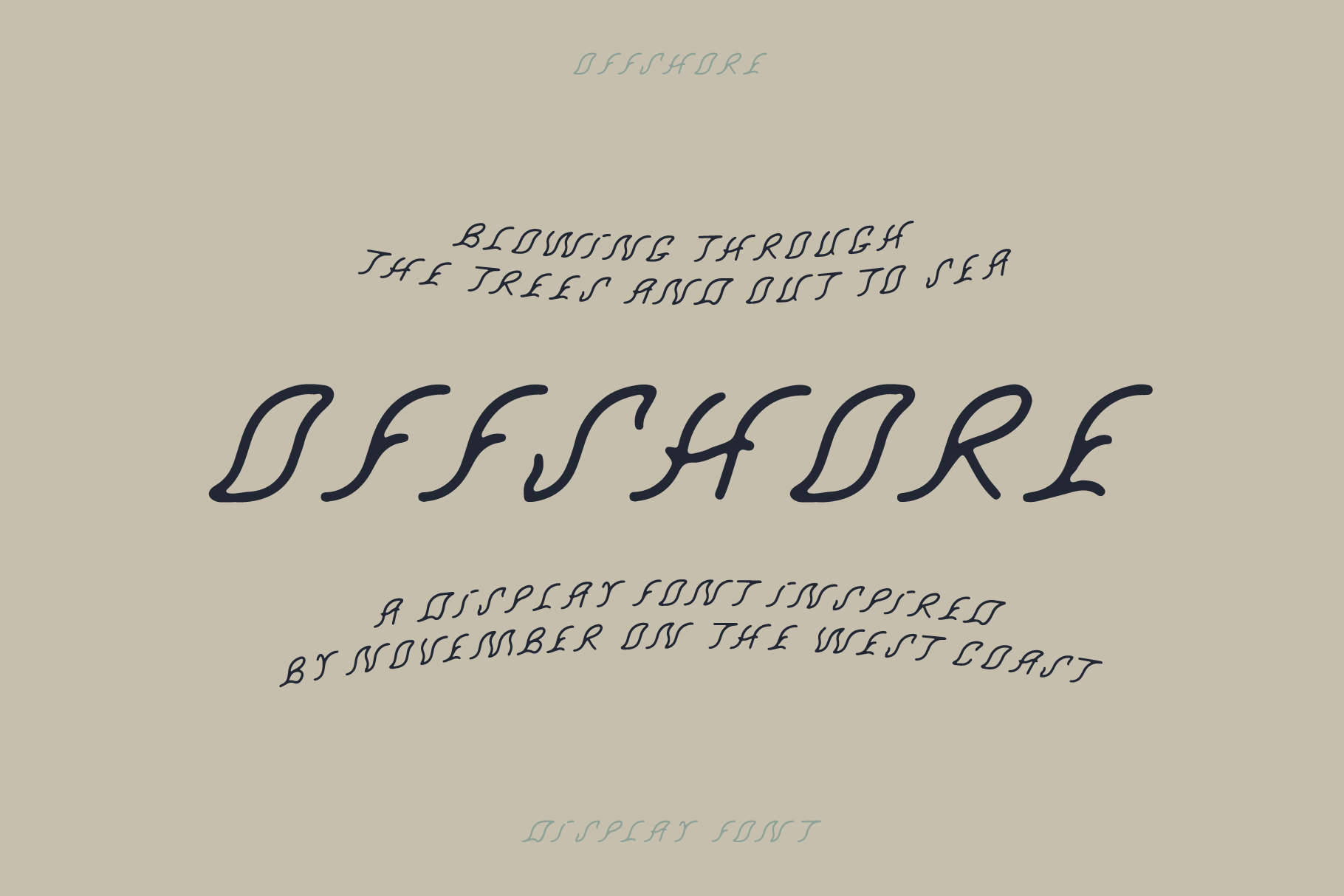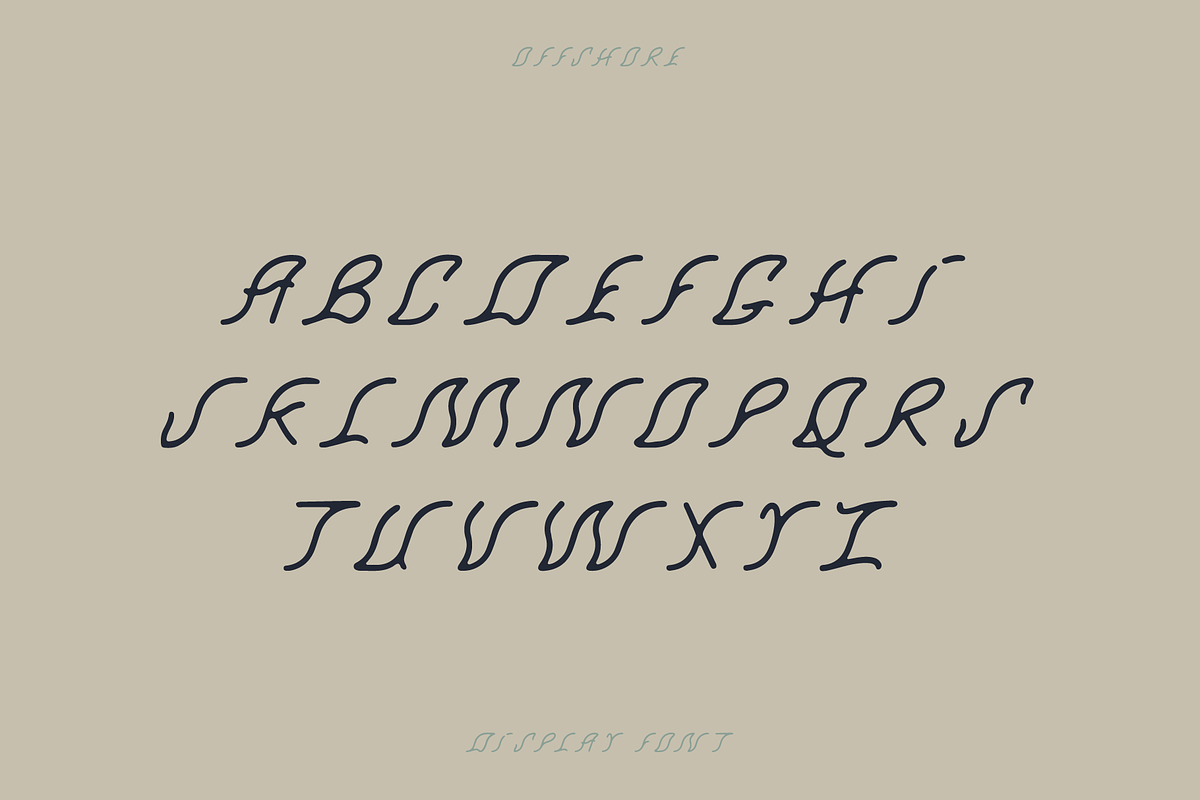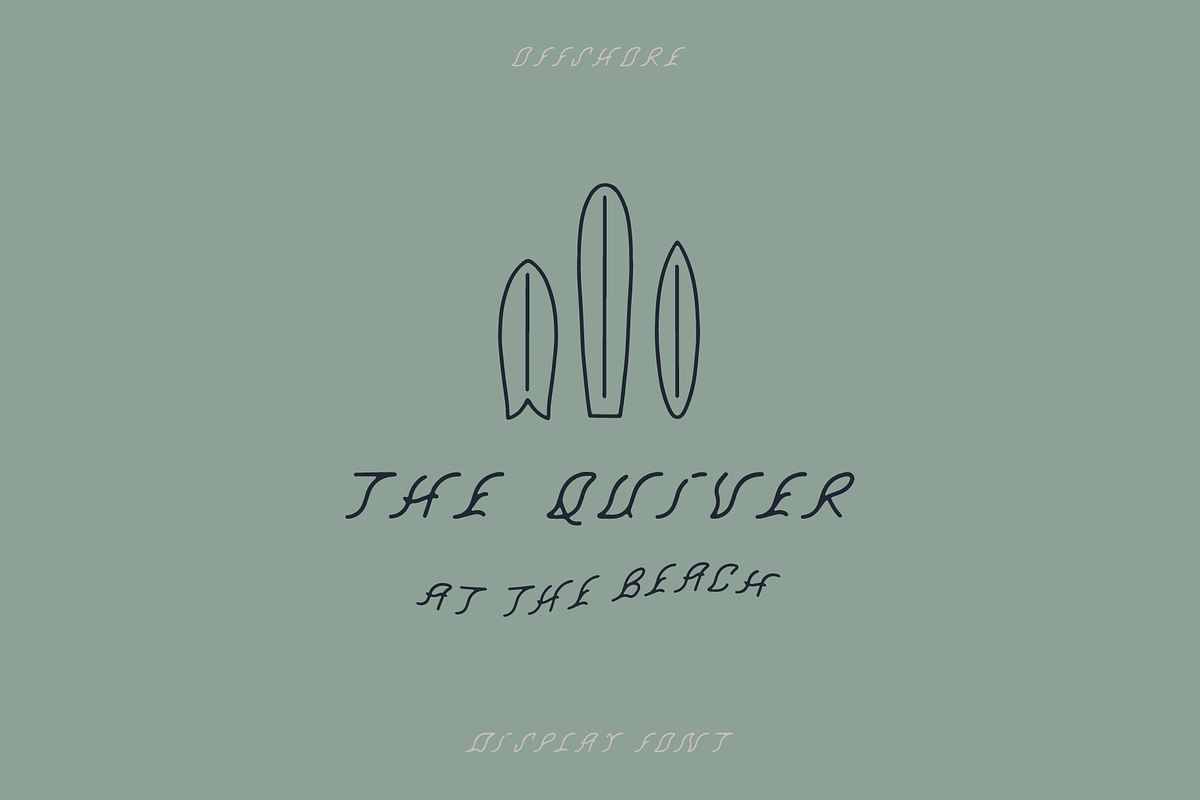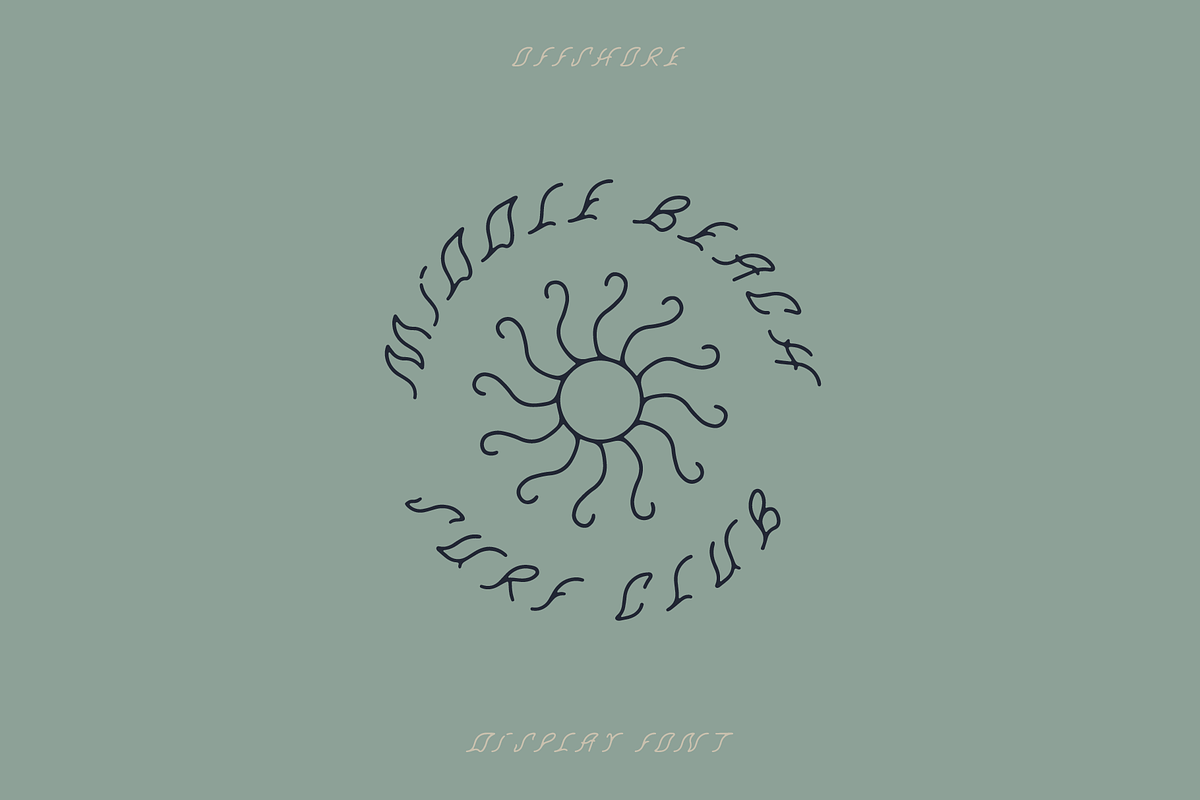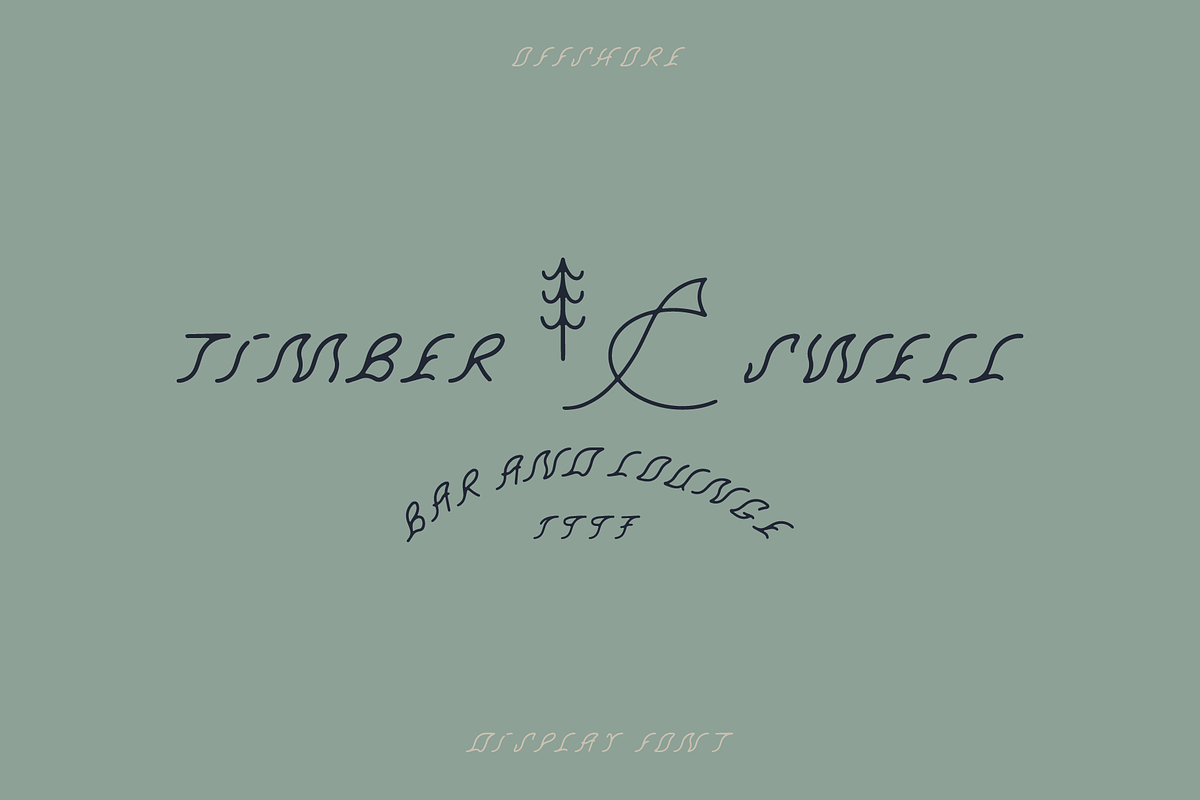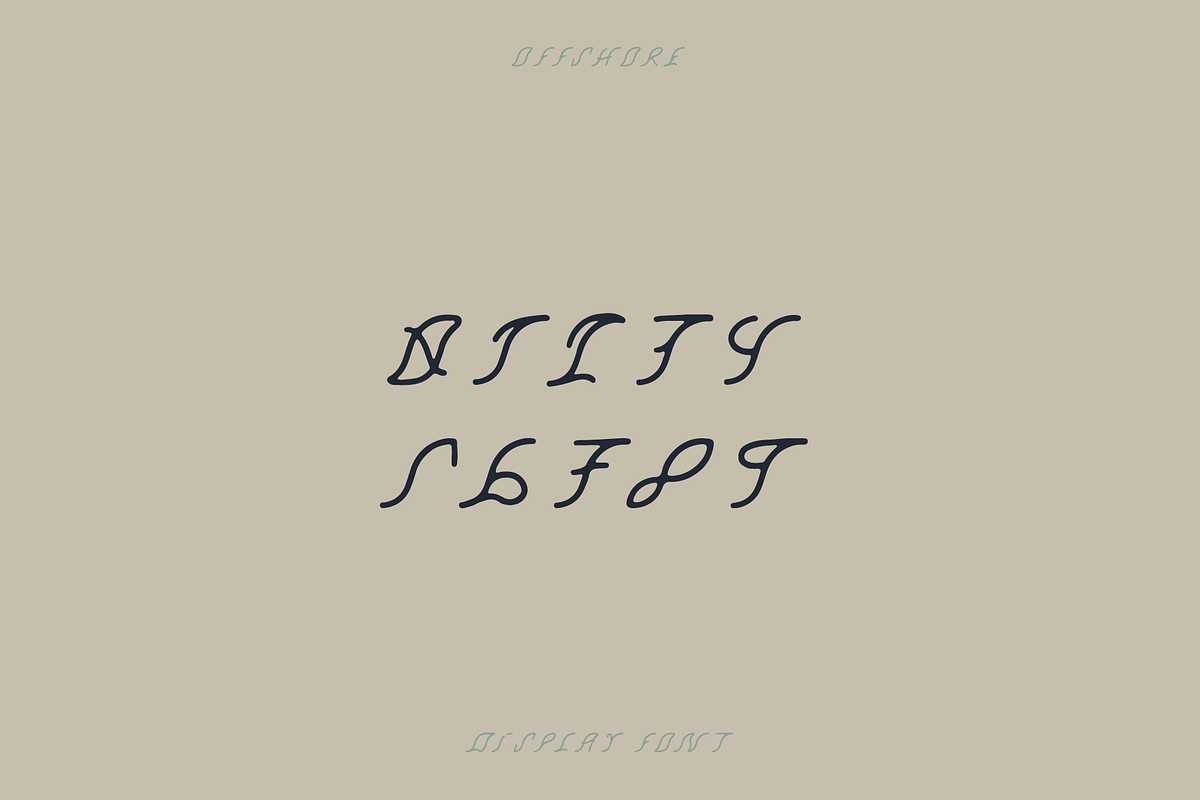
Offshore Display Font
Offshore Display is not your typical font. It bends and twists creating a constant forward motion that is attractive and extremely unique. This is a perfect font for logos needing a little inspiration from our natural world.